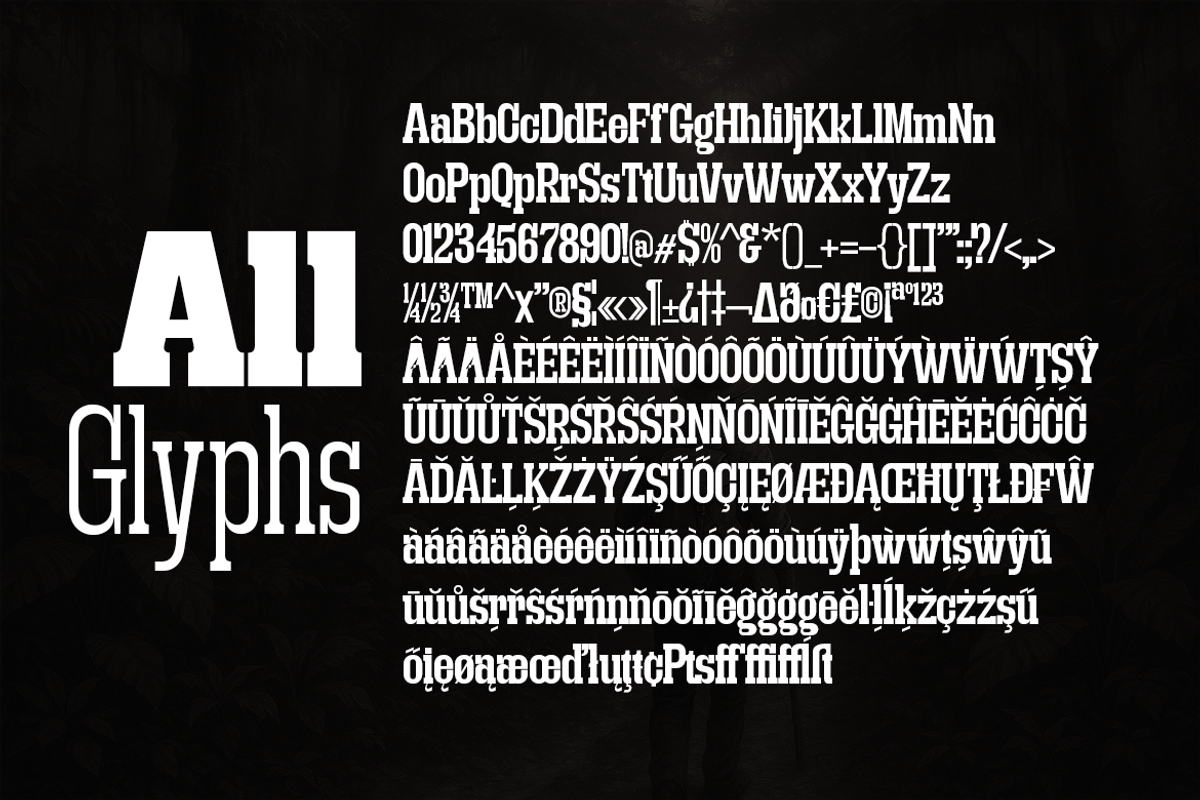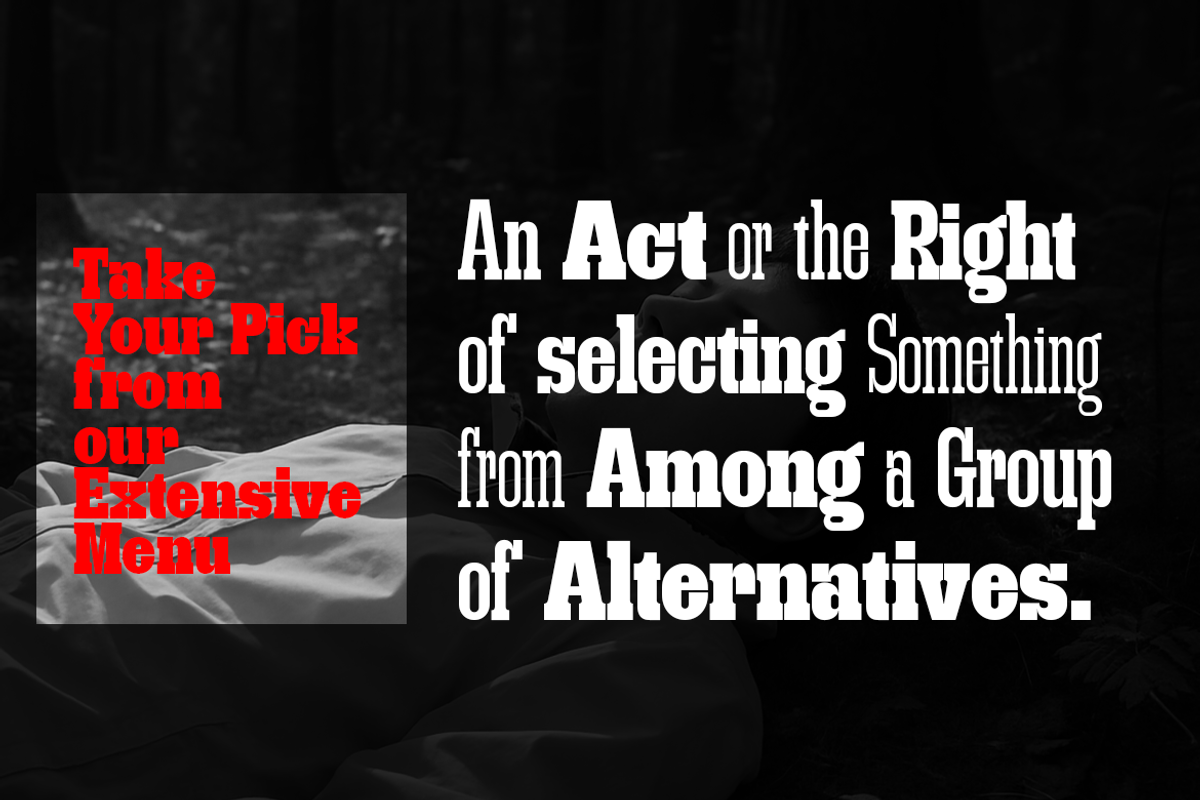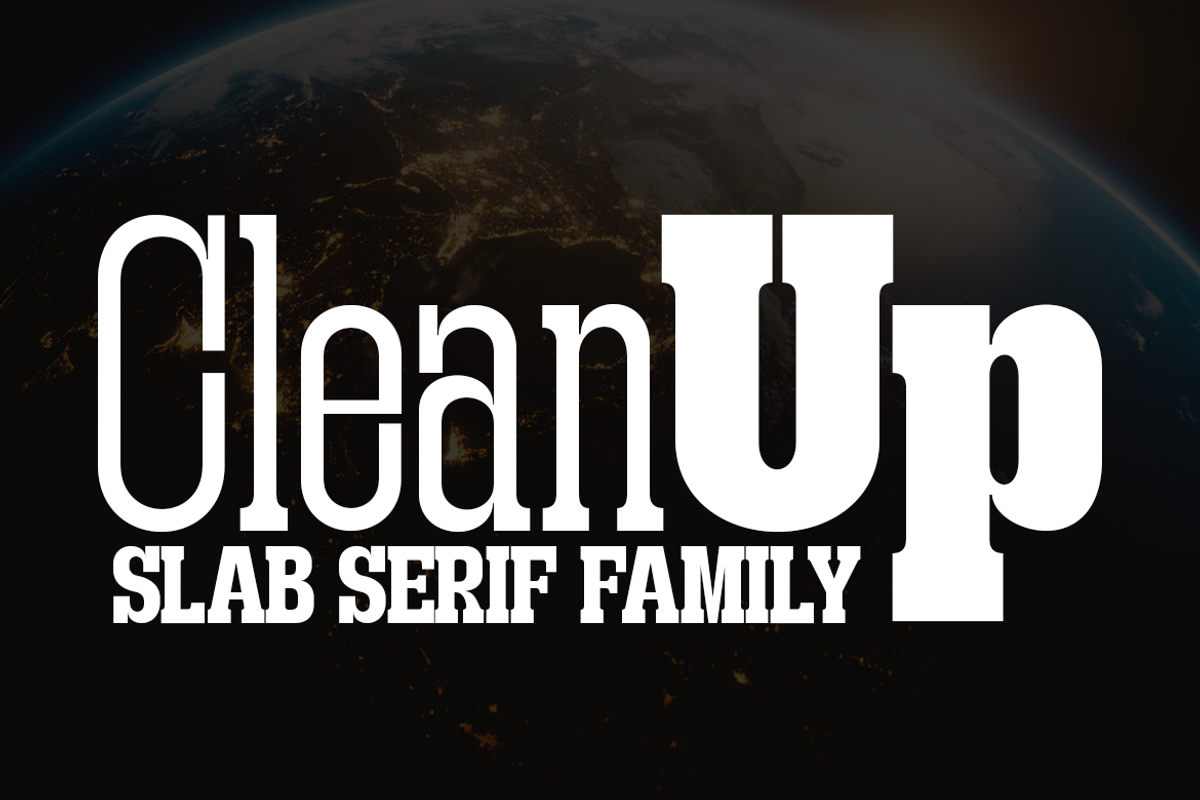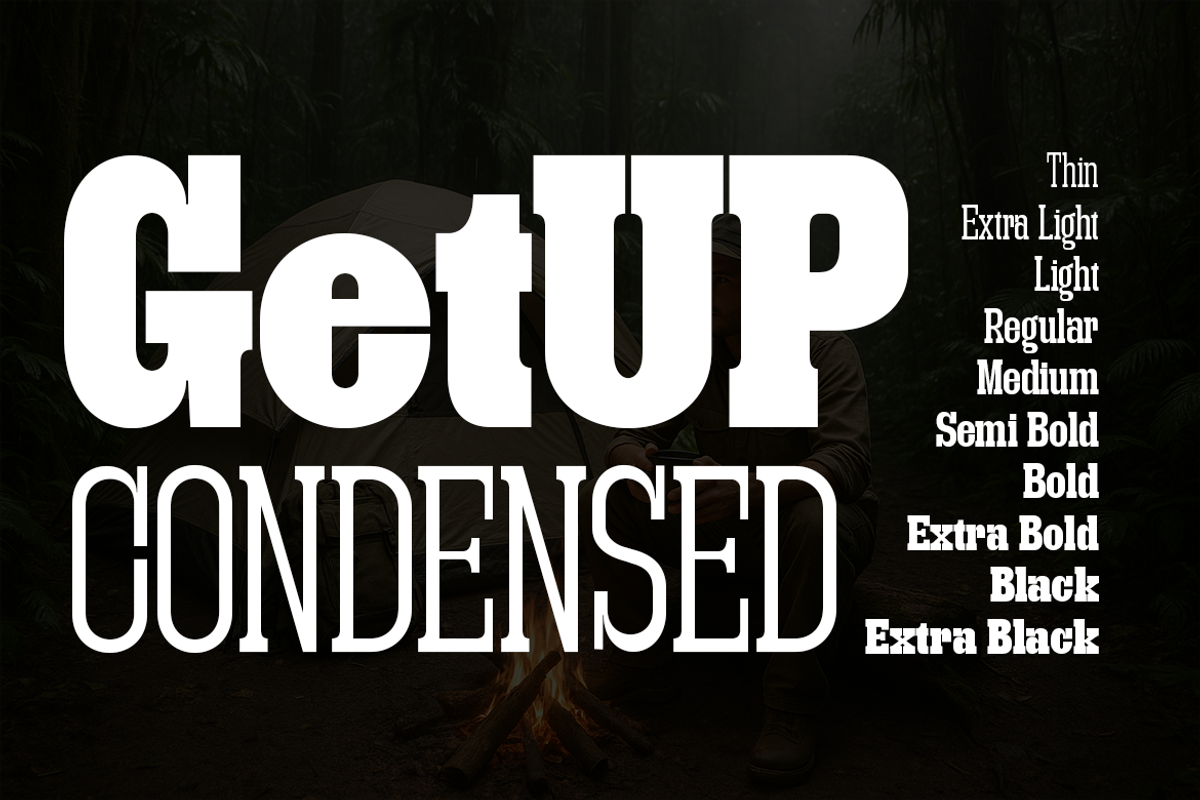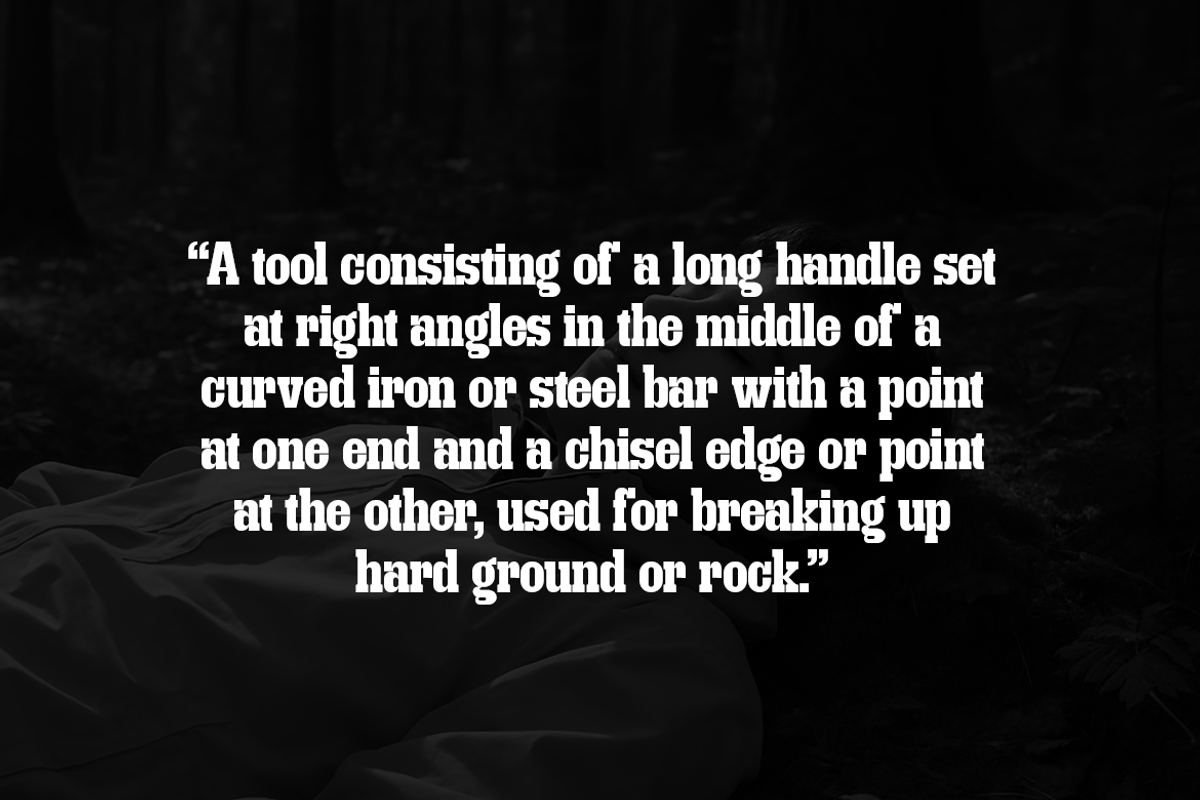
GetUp – Condensed
GetUp – Condensed (10 Weights: Thin–Extra Black)
Description: GetUp Condensed brings a dynamic and contemporary slab serif look with slimmer proportions and clean outlines. Featuring 10 versatile weights, it adapts seamlessly to sports visuals, posters, branding systems, packaging, and digital layouts. The Condensed category provides a balance between space-saving structure and expressive boldness. Lighter weights feel sleek and modern, while heavier weights deliver strong, athletic energy—perfect for high-impact designs.